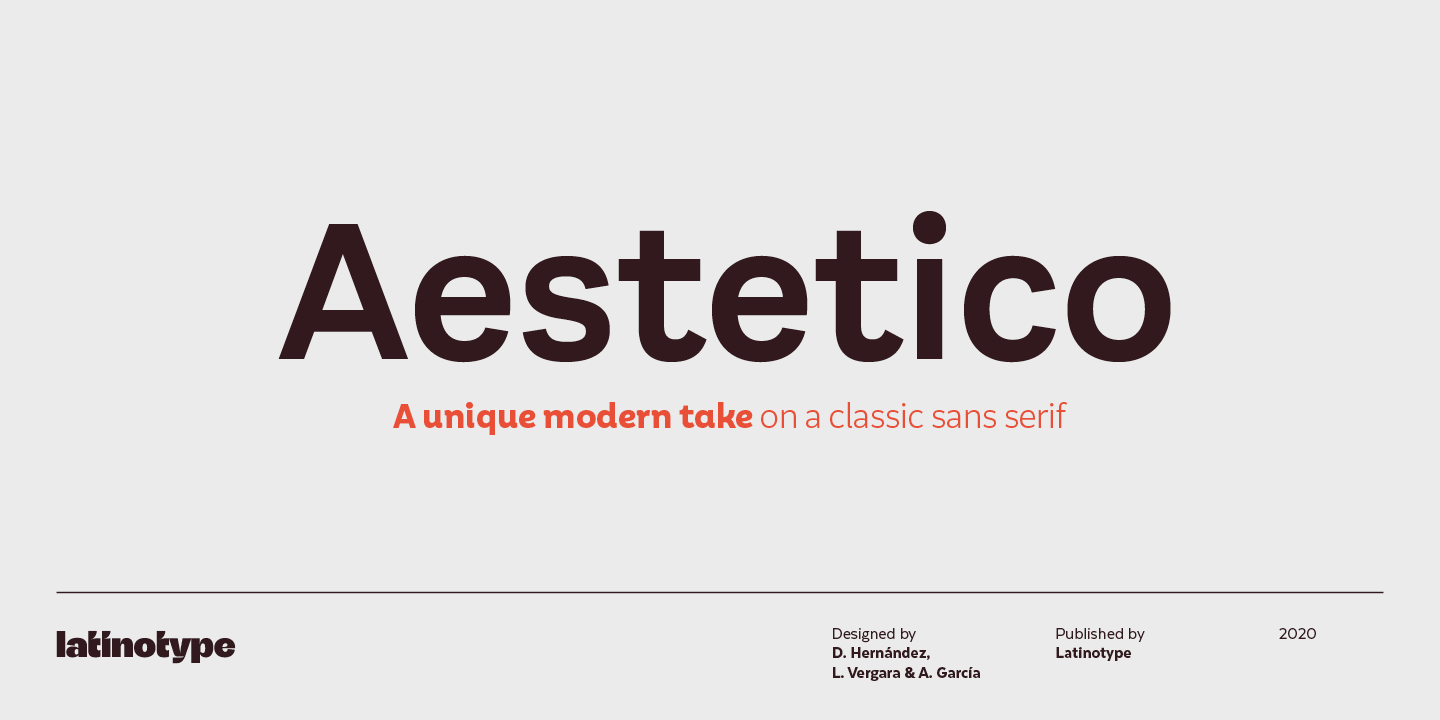
Aestetico Font is ideal for fashion brands, beauty products, luxury cosmetics, artistic portfolios, modern galleries, sophisticated magazines, and high-end lifestyle branding. This elegant typeface excels in creating refined and aesthetically pleasing visual communications.
Aestetico Font is exciting because it embodies pure aesthetic sophistication with its carefully balanced letterforms and refined character shapes. Its minimalist approach and elegant proportions create an atmosphere of modern luxury and artistic refinement.
The Aestetico Font family includes multiple weights from Light to Bold, along with complementary italic styles. This versatile collection provides designers with comprehensive options for creating harmonious and visually stunning typographic hierarchies.
Aestetico Font Free Download provides access to a meticulously crafted typeface that represents the pinnacle of contemporary aesthetic design. This sophisticated font combines clean geometric principles with subtle artistic flourishes, resulting in letterforms that are both visually striking and highly functional. The typeface features optimized spacing and proportions that ensure exceptional readability while maintaining its distinctive aesthetic appeal. Its refined character makes it particularly suitable for luxury brands and creative projects where visual excellence is paramount. Aestetico Font delivers consistent performance across various media platforms, from digital interfaces to premium print materials. The font's elegant simplicity and modern sophistication make it an essential tool for designers working on projects that require both visual impact and aesthetic refinement, establishing a strong foundation for memorable brand identities.